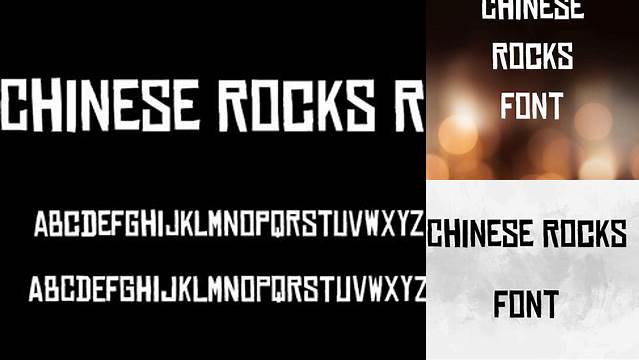
Introduction to Chinese Rocks RG Font
Hey guys! Let's talk about Chinese Rocks RG Font. Ever stumbled upon a font that just screams a certain vibe? That's Chinese Rocks RG Font for you. It’s not just a font; it’s a statement. This typeface brings a unique, edgy feel to any project it graces, perfect for when you want to add a touch of the unconventional. Now, when we say 'free,' everyone perks up, right? The allure of getting a cool font without dropping any cash is undeniably appealing. But before you rush off to download, let's get into what makes this font tick. We’ll explore its history, its style, and, most importantly, where you can snag it for free safely and legally. Typography is so much more than just words on a page; it's about conveying emotion, setting a mood, and grabbing attention. Chinese Rocks RG Font does this with a bold and distinctive flair. It is the kind of font that can take your designs from bland to grand, making your text jump off the screen or page. Whether you are working on posters, logos, or any creative project, understanding how to use this font effectively can seriously up your game. So, stick around as we dive into the world of Chinese Rocks RG Font and discover how you can leverage its unique characteristics to create stunning visuals.
History and Origin of the Font
Okay, so where does this Chinese Rocks RG Font come from? Fonts don't just appear out of thin air, you know! Every typeface has a story, a creator, and an inspiration behind it. While the exact origins of Chinese Rocks RG Font might be a bit shrouded in mystery (some fonts are more well-documented than others), we can still look at its style to understand where it might fit in the world of typography. Given the name, it hints at a fusion of Eastern and Western influences, possibly drawing inspiration from Chinese calligraphy and rock music culture. This blending of styles makes it incredibly unique and versatile. Understanding the history and origin can help you appreciate the font more and use it appropriately. For instance, knowing that it possibly has roots in rock music might make you more inclined to use it for band posters or album art. Or, the Chinese influence could inspire you to use it in designs that need a touch of Asian flair. It’s also essential to respect the creator's intentions. Fonts are artistic creations, and using them in ways that honor their design is crucial. Sometimes, the history of a font can inform your design choices, ensuring that you are using it in a way that’s both creative and respectful. So, while the precise details of its creation might be elusive, remember that every font has a story waiting to be discovered. And that story can add depth and meaning to your designs. This font's unique blend of cultural elements means it can be used in a wide variety of projects, from modern digital art to more traditional print designs.
Key Features and Style of Chinese Rocks RG Font
Let’s break down the key features and style of Chinese Rocks RG Font. What makes it stand out from the sea of other fonts out there? Well, for starters, it’s got a distinct, edgy look. Think bold lines, maybe a bit of a rough texture, and an overall feel that’s far from ordinary. This font isn’t trying to blend in; it’s here to make a statement. The style often leans towards a grunge or rock-and-roll aesthetic, making it perfect for designs that need a bit of attitude. Imagine using it for a band poster, a skateboard brand logo, or even a gritty urban-themed website. The possibilities are endless! Key features might include unique letterforms, stylistic alternates, and perhaps even some cool ligatures. These are the little details that make a font truly special. When you’re choosing a font, consider its readability. While Chinese Rocks RG Font is all about style, you still want your message to be clear. Use it in headlines and shorter text blocks where its impact can shine without sacrificing legibility. Another thing to consider is its versatility. Can it be used in a variety of sizes and contexts? Does it pair well with other fonts? Experiment with different combinations to see what works best for your project. Ultimately, the style of Chinese Rocks RG Font is all about making a bold statement. It’s for those who want to stand out, be different, and add a bit of edge to their designs. So, embrace its unique characteristics and let it rock your next project!
Pairing Chinese Rocks RG Font with Other Typefaces
Let's explore pairing Chinese Rocks RG Font with other typefaces. Choosing the right font combination can take your designs to the next level. But how do you know which fonts work well together? Here are some tips for pairing Chinese Rocks RG Font with other typefaces. First, consider the overall tone and style of your project. Chinese Rocks RG Font is bold and edgy, so you'll want to pair it with fonts that complement that style without overpowering it. A good rule of thumb is to pair a display font (like Chinese Rocks RG Font) with a more neutral and readable sans-serif or serif font for body text. For example, you could pair Chinese Rocks RG Font with a clean sans-serif like Open Sans or Roboto for a modern and balanced look. Or, you could pair it with a classic serif font like Times New Roman or Georgia for a more traditional and contrasting feel. Another approach is to use a font pairing website or tool. These resources can help you discover font combinations that work well together based on your chosen font. Just search for